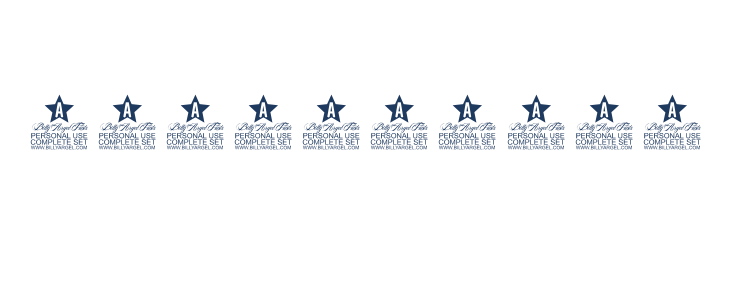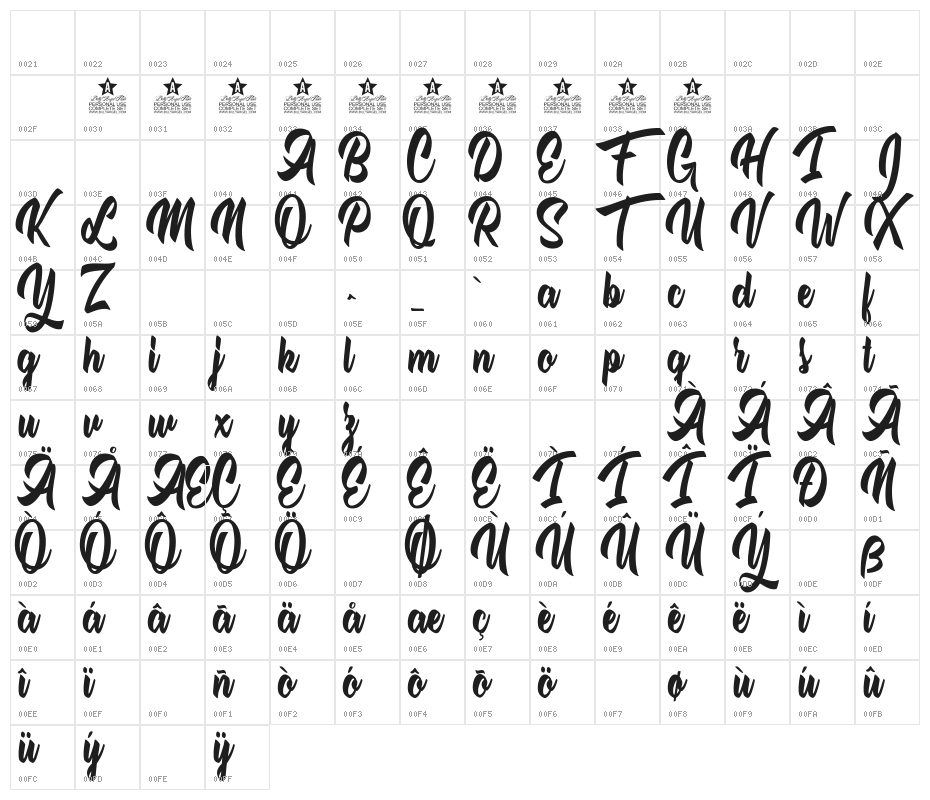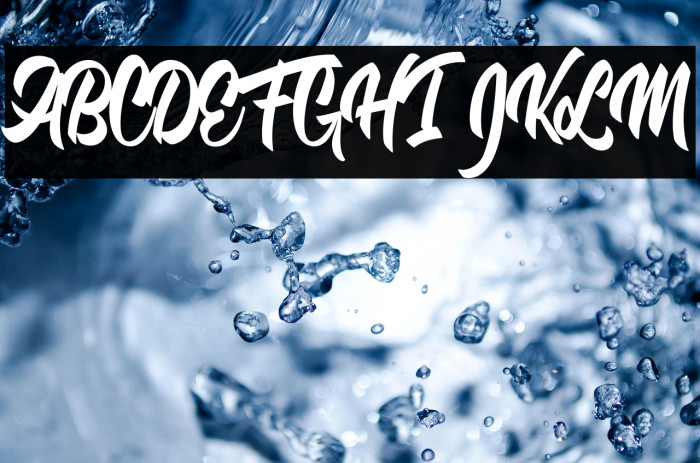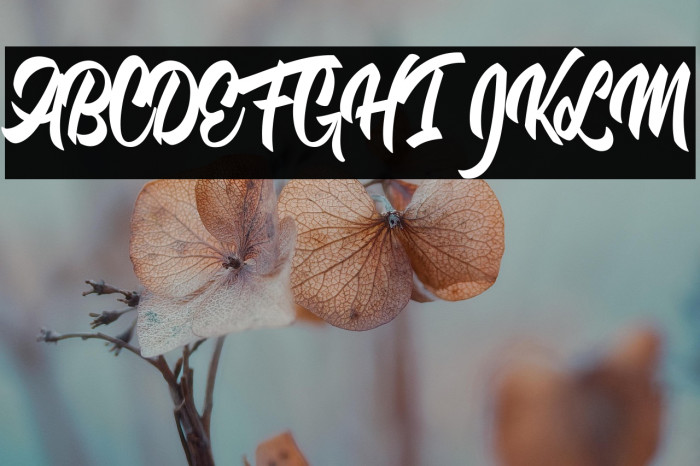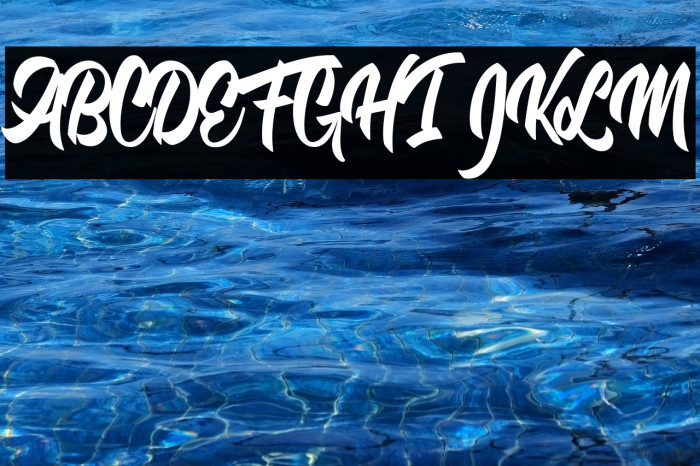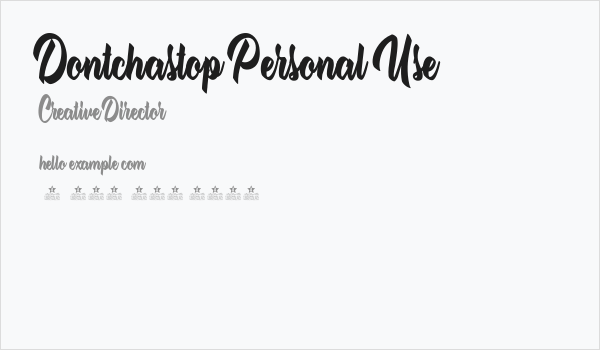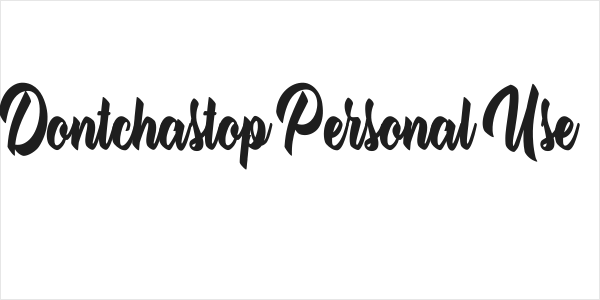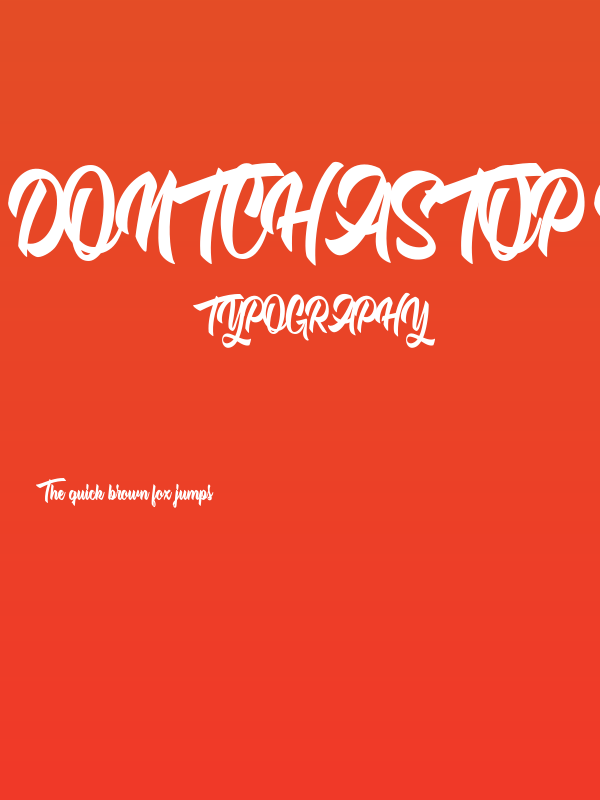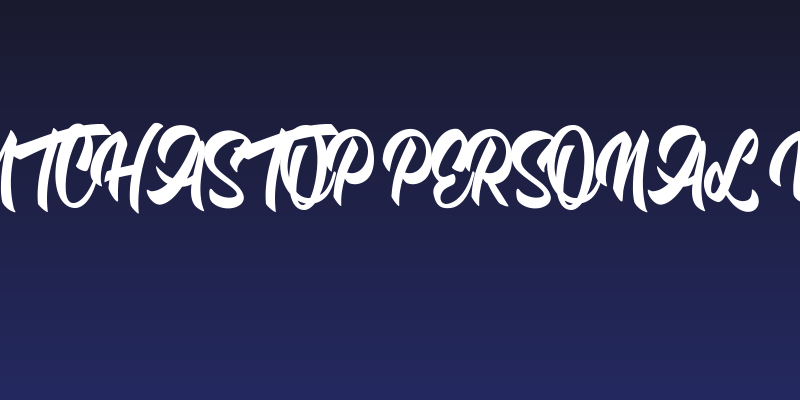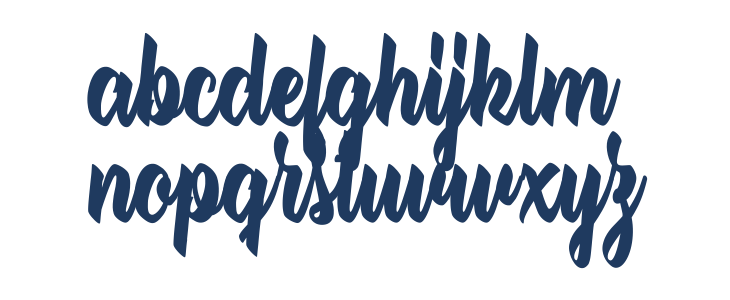
Dontchastop Personal Use Font
Dontchastop Personal Use Description
This font features a bold, flowing script style that exudes a sense of dynamic movement and energy. The letters are interconnected with smooth, sweeping curves, giving it a cohesive and elegant appearance. The uppercase characters are particularly striking, with exaggerated loops and flourishes that add a touch of drama. The lowercase letters maintain a consistent style, complementing the uppercase with their own graceful curves. The overall design is both modern and stylish, making it suitable for a variety of creative applications. The font's bold weight and high contrast between thick and thin strokes enhance its readability while maintaining its decorative appeal.